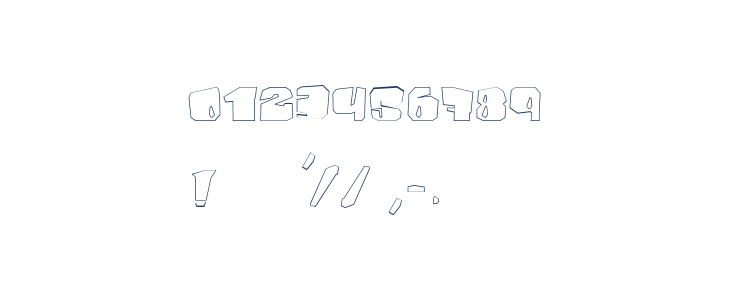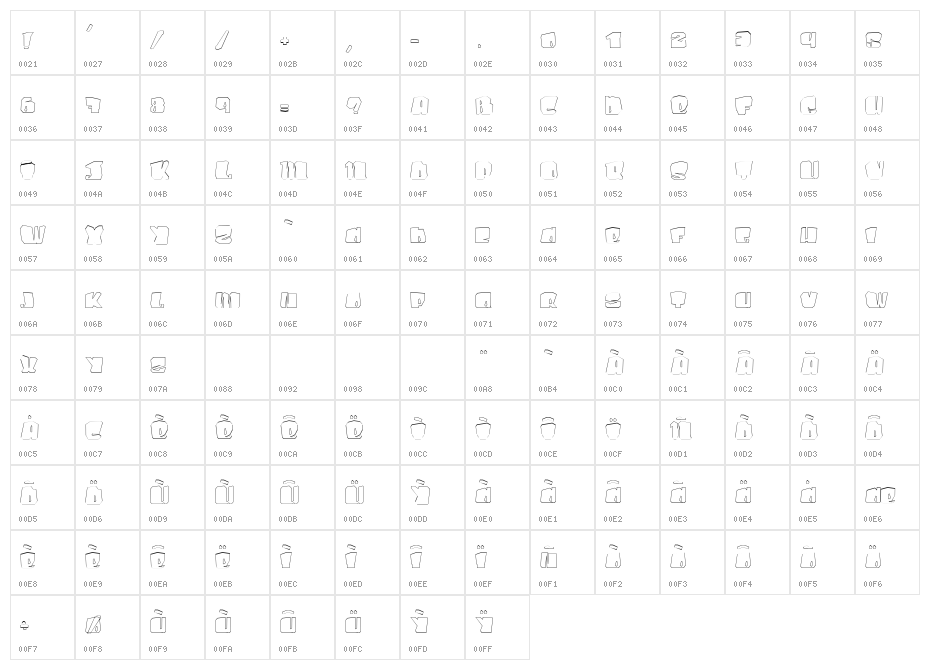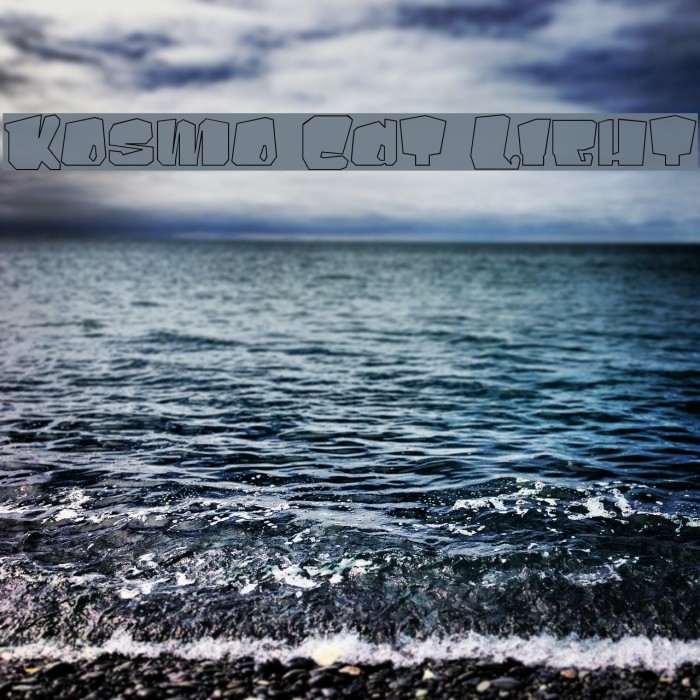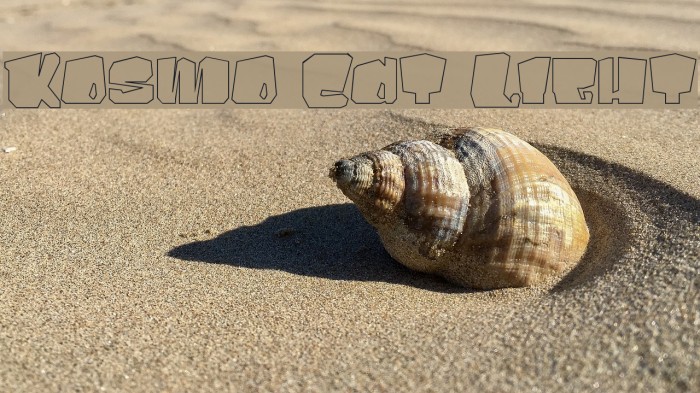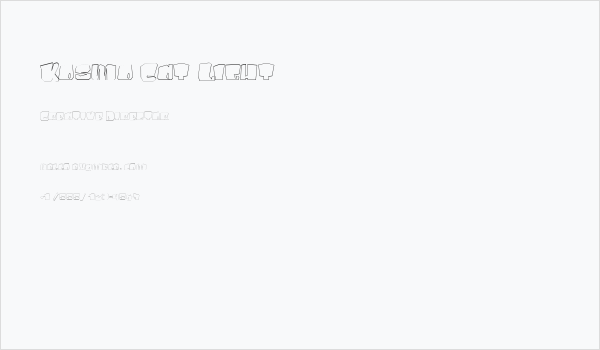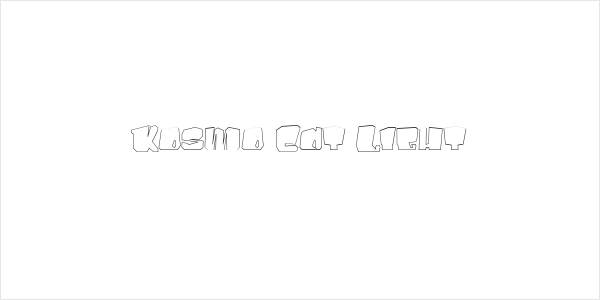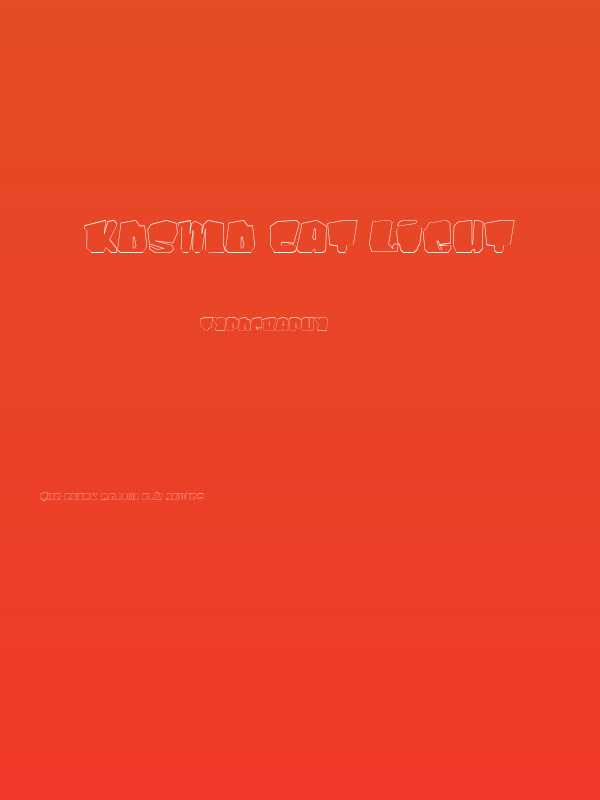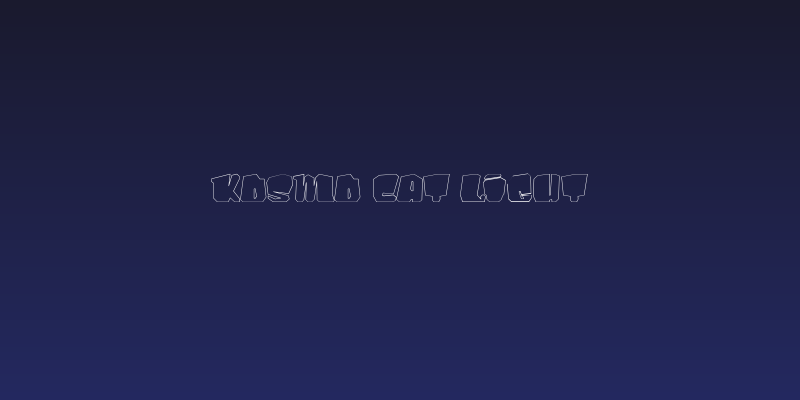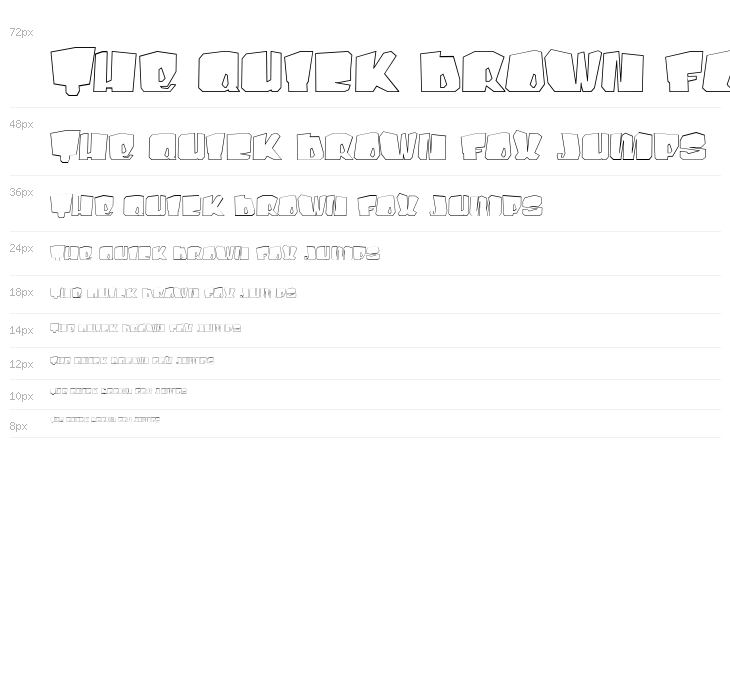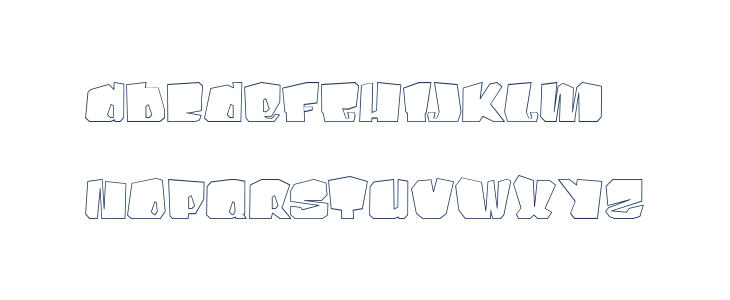
Kosmo Cat Light Font
Kosmo Cat Light Description
This font features a bold and geometric design with a three-dimensional effect, giving it a futuristic and playful appearance. The characters are outlined with a consistent thickness, creating a hollow look that adds depth and intrigue. The angular and blocky shapes of the letters are reminiscent of digital or sci-fi themes, making it stand out as a decorative choice. The uppercase and lowercase letters maintain a uniform style, while the numbers and special characters complement the overall aesthetic. This font is ideal for projects that require a modern and edgy touch, such as gaming titles, tech-related branding, or creative posters.
| Proposed Projects | Ideal for gaming titles, tech branding, creative posters, and sci-fi themed projects. |